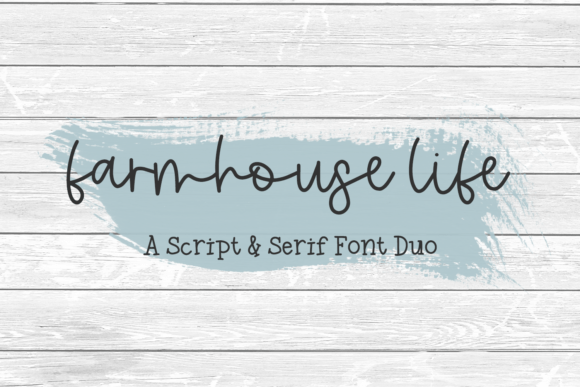
BeckMcCormick's Farmhouse Life Duo Font, a harmonious fusion of script and serif fonts, awaits you in a world of charm and creativity! Dive into the beauty of Farmhouse Life, an exceptional font duo that effortlessly captures the essence of warmth, comfort, and timeless appeal. Step into a realm where rustic charm meets modern elegance, where your designs will blossom with a touch of Farmhouse Life.
Embrace the allure of this captivating script font, its graceful curves and delicate strokes weaving an aura of enchantment. Express your heartfelt emotions with Farmhouse Life, a font that whispers promises of love, friendship, and cherished memories. Witness the union of sophistication and simplicity as the serif font complements the script, creating a symphony of visual harmony.
Picture your designs adorned with Farmhouse Life Duo Font, a perfect complement to wedding invitations, evoking the joyous spirit of commitment and new beginnings. Create stunning wedding favors and décor that radiate warmth and elegance, leaving a lasting impression on your guests. Unleash your creativity with Farmhouse Life Duo Font in feminine and crafty projects, allowing your designs to stand out with a charm that's irresistible.
Express your brand's unique identity with Farmhouse Life Duo Font, a font designed to leave a mark. Craft compelling logos and branding that exude a sense of warmth and authenticity, empowering your brand to connect with its audience on a deeper level. Design an aesthetically pleasing website that captivates visitors with the charm of Farmhouse Life Duo Font, creating a memorable online experience.
Craft captivating quote graphics for social media with Farmhouse Life Duo Font, amplifying your messages with a touch of rustic elegance. Let your words shine with a font that conveys emotions and connects with audiences on a personal level. Elevate your feminine graphic tee shirt designs and apparel with Farmhouse Life Duo Font, creating a fashion statement that speaks to the heart. Farmhouse Life Duo Font is more than just a font; it's an open invitation to a world of creativity and endless possibilities.